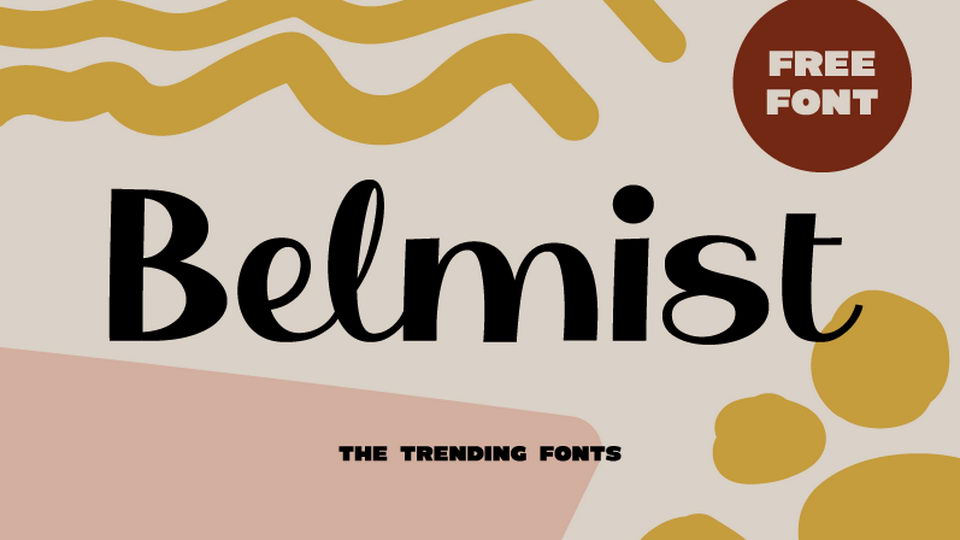
Download Belmist font, a beautiful handwritten font with classy and modern look. Belmist font looks great for logos, cards, prints, social media, menus, books, wedding designs and more.